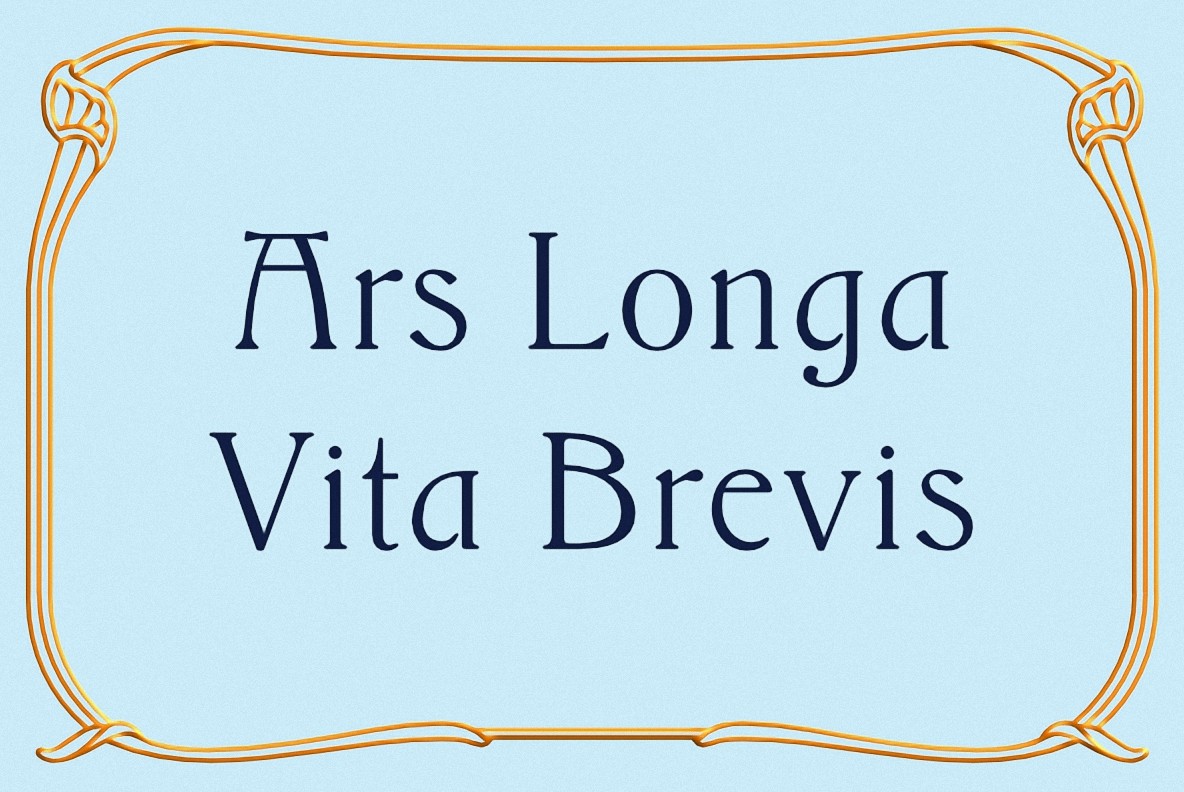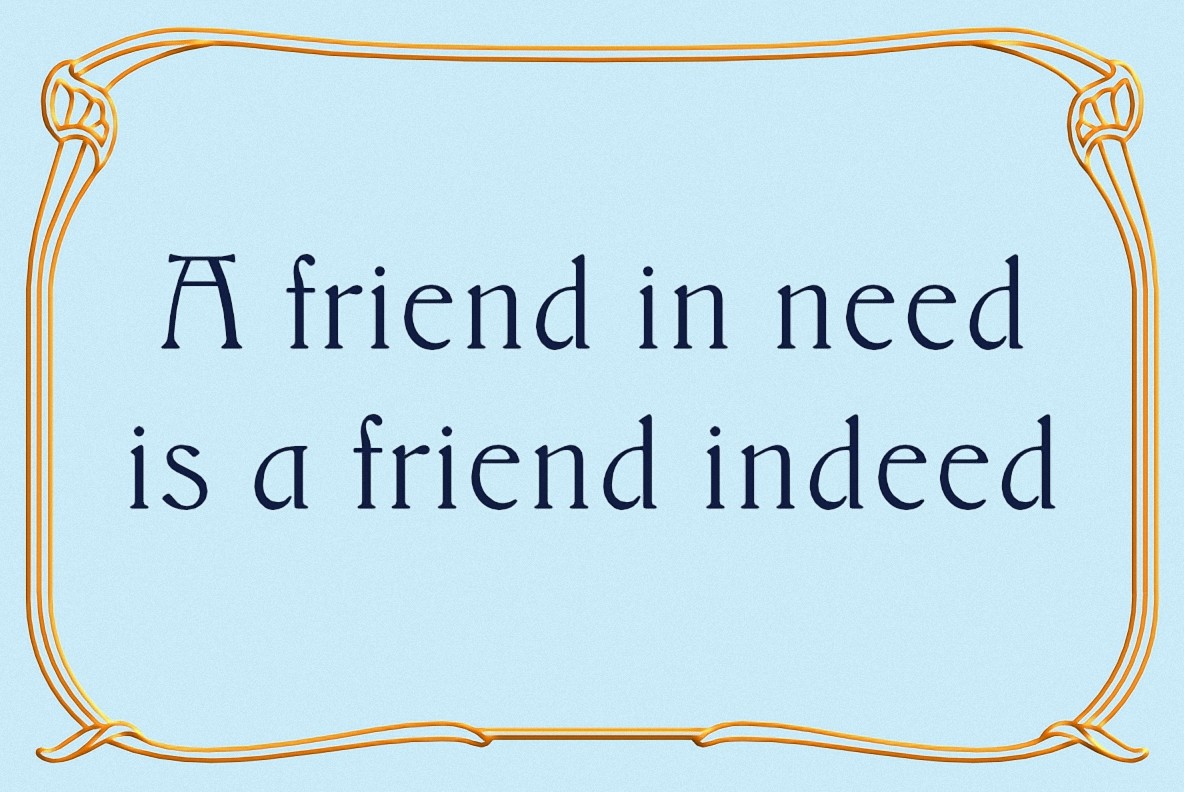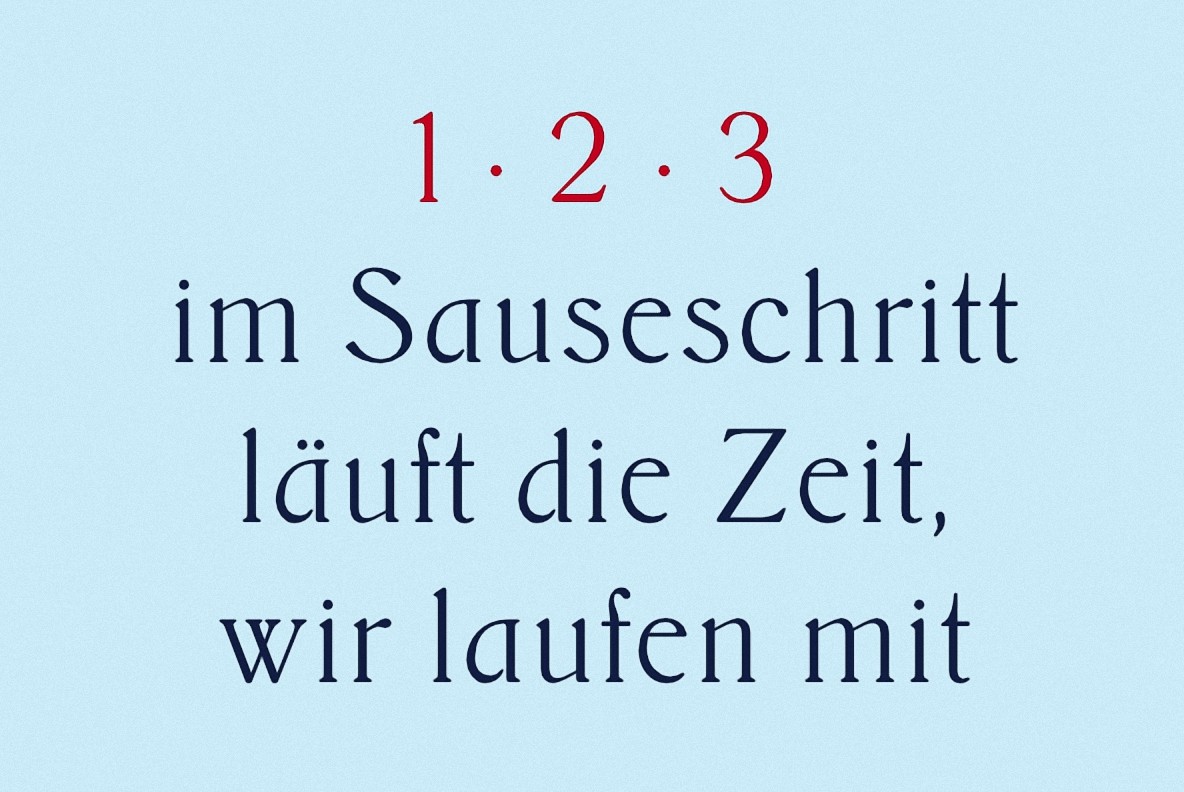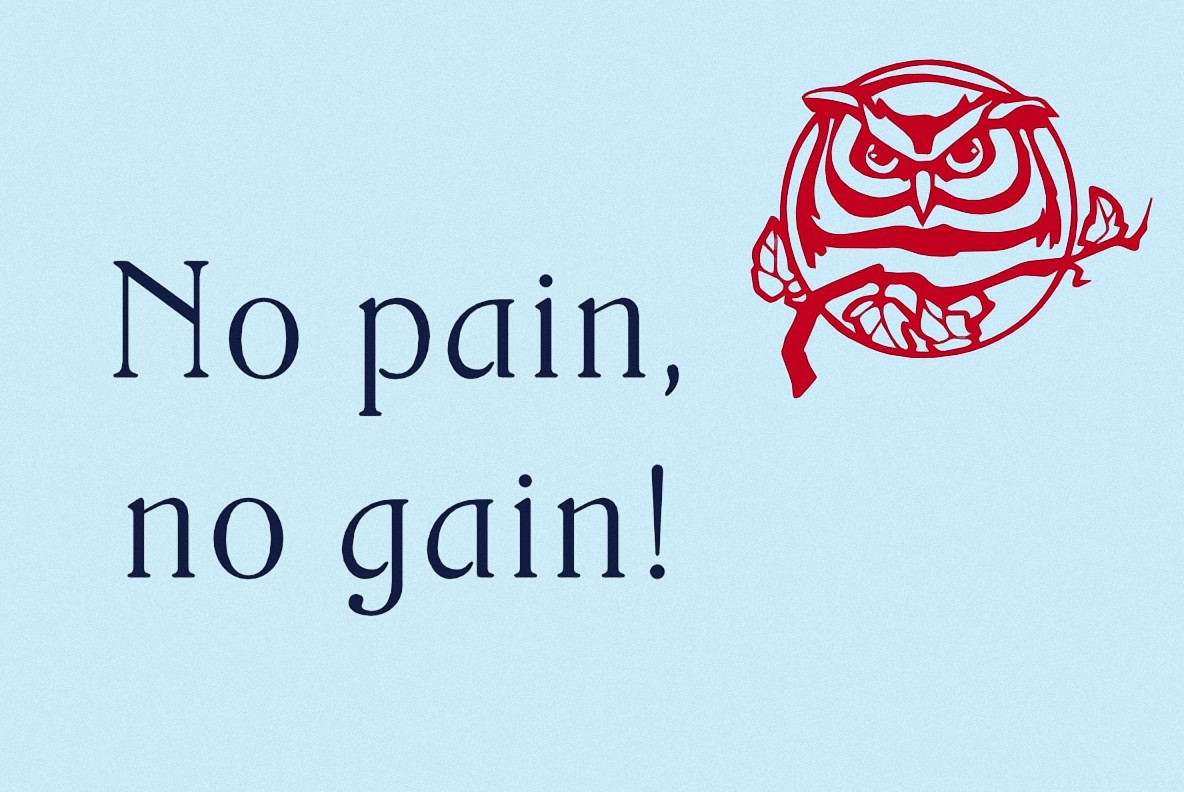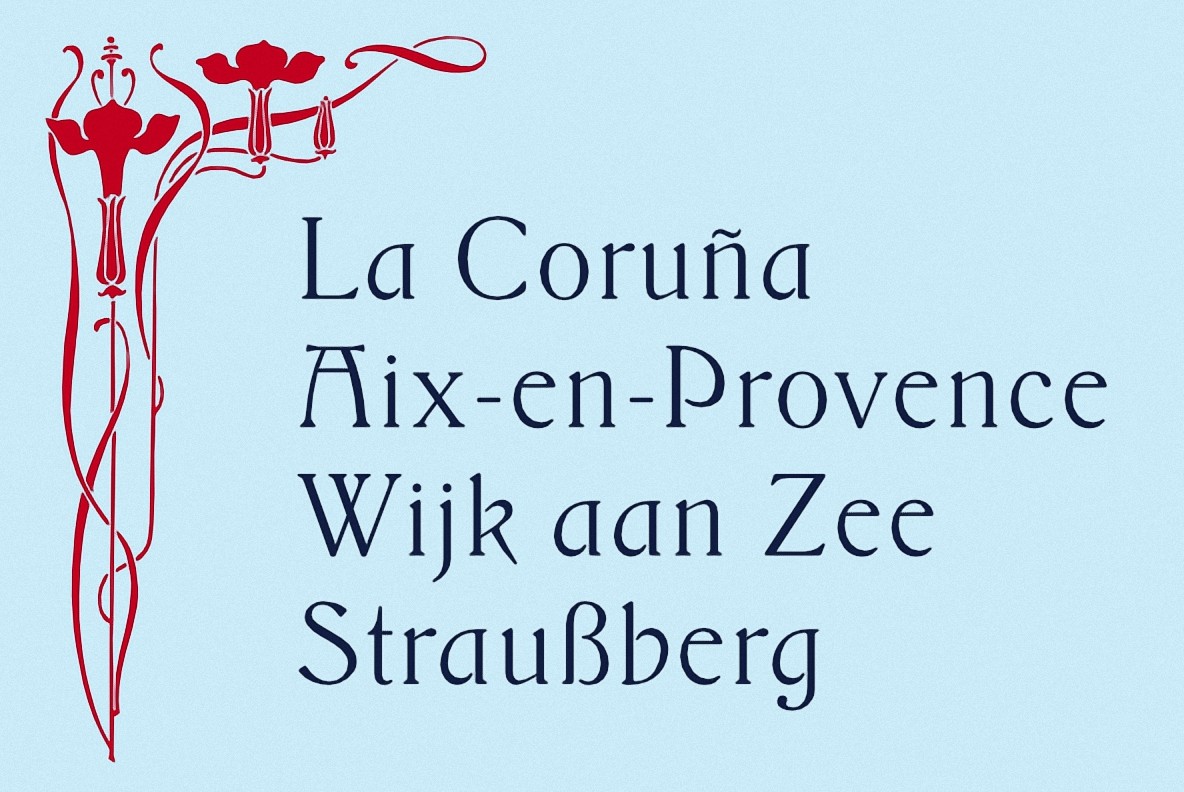
Borghese Font
Borghese
Borghese - a 1904 Schelter & Giesecke font in Art Nouveau style was completely redesigned and is an ideal body text companion of display fonts from the same era.